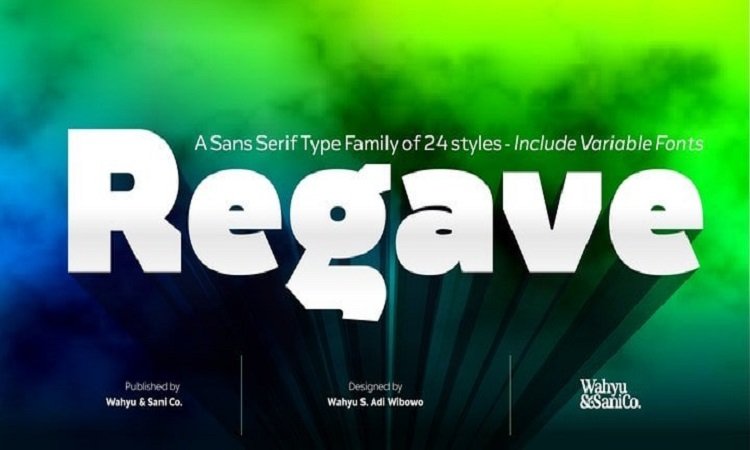
Regave Sans Serif Font
Introducing Regave Sans Serif Font is a new modern sans serif typeface. It is clear, sharp and has brave, lively letter forms but with a conservative backbone. A typeface inspired by Danish style lettering based off the work of Knud Valdemar Engelhardt (1882–1931) who designed the street signs for the Copenhagen suburb of Gentofte.
The Engelhardt’s design was loosely based on the lettering of two Danish architects of the time: Thorvald Bindesbøll (designer of the Carlsberg logo) and Anton Rosen. The signs were so successful that they’re still in use today. This font is free for personal use.